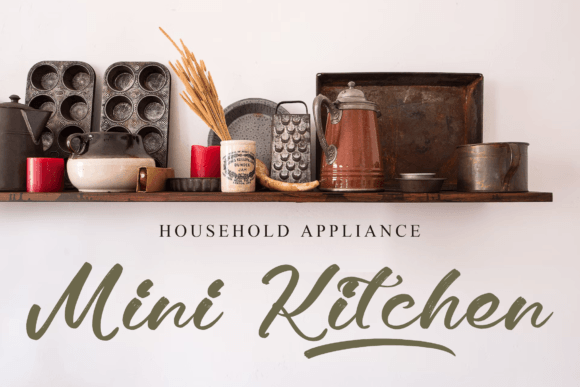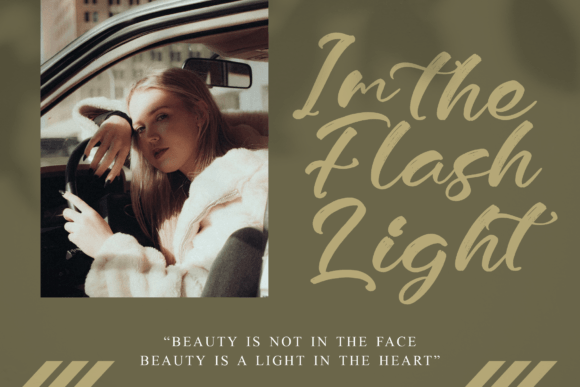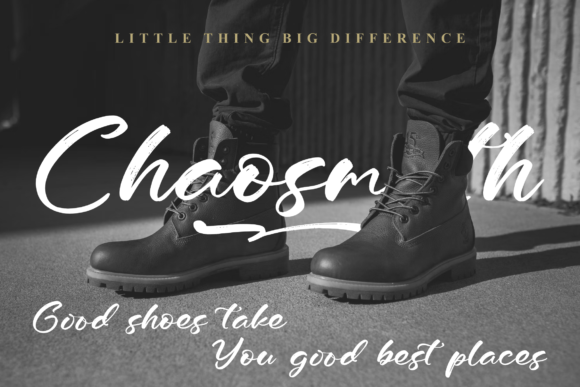
Introduction to Bonalista Font
Remember the thrill of creating a new design project and searching for the perfect font to bring your vision to life? For designers, finding a high-quality font that perfectly captures the essence of our creative intent can be a game-changer. This is where the Bonalista Font comes in – a modern brush calligraphy font that’s sure to elevate your designs and leave a lasting impression.
With its beautiful script style, the Bonalista Font is suitable for a wide range of projects, from logos and branding to homeware designs, product packaging, and even photography. Whether you’re working on a personal or professional project, this font is a valuable design resource that’s sure to inspire your creativity. And the best part? It’s available for free download, complete with a transparent background, making it easy to integrate into your designs.
- High-quality design resource suitable for creative projects, offering a unique and stylish look.
- Perfect for designers looking for a distinctive and modern font to elevate their creative project.
Honest Review: Bonalista Font
I recently stumbled upon the Bonalista Font, and I’m excited to share my honest review with you. As a designer, I’m always on the lookout for high-quality design resources to elevate my creative projects.
- ✨ Unique and modern design aesthetic: The Bonalista Font has a distinct look that’s perfect for modern branding and design projects.
- ✨ Clear and legible: The font is easy to read, even at smaller font sizes, making it a great choice for body text and headings.
- ⚠️ Limited character set: The font only comes with a basic character set, which may not be sufficient for complex design projects.
Overall, I’m impressed with the Bonalista Font’s unique design aesthetic and clear readability. While it may have some limitations, it’s a great resource for designers working on creative projects who are looking for a high-quality font at no cost.
Bonalista Font
The Bonalista Font is perfect for creating eye-catching headings, titles, and body text for creative projects. Use it for logos, brochures, flyers, or even social media graphics. Its high-quality design and transparent background make it an ideal choice for designers and non-designers alike.